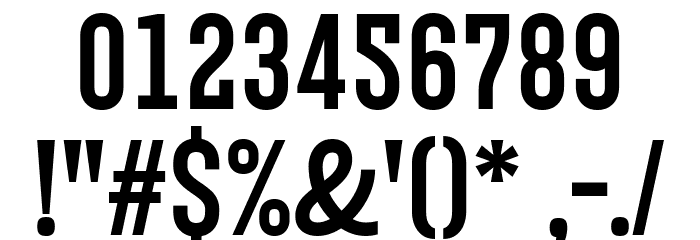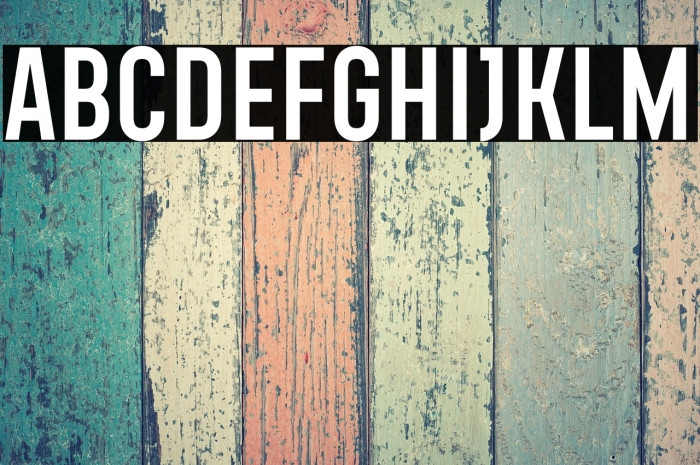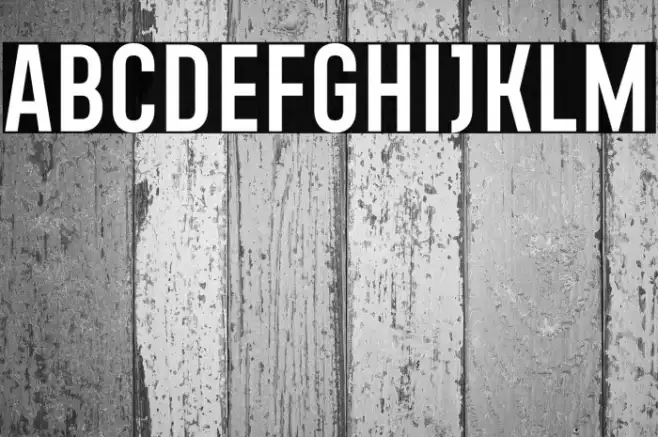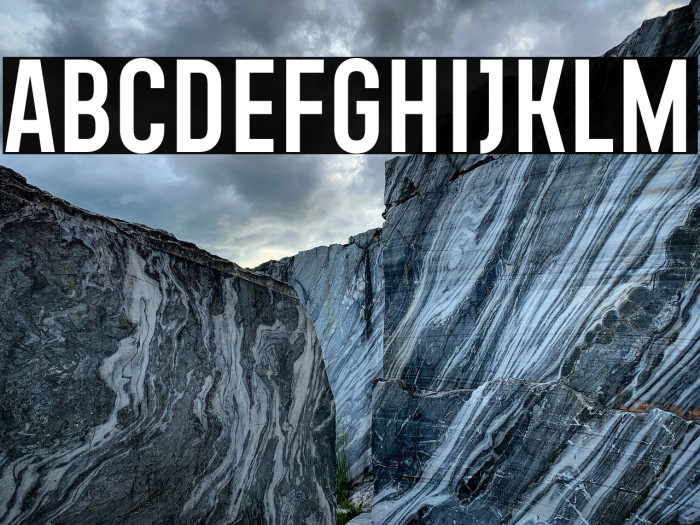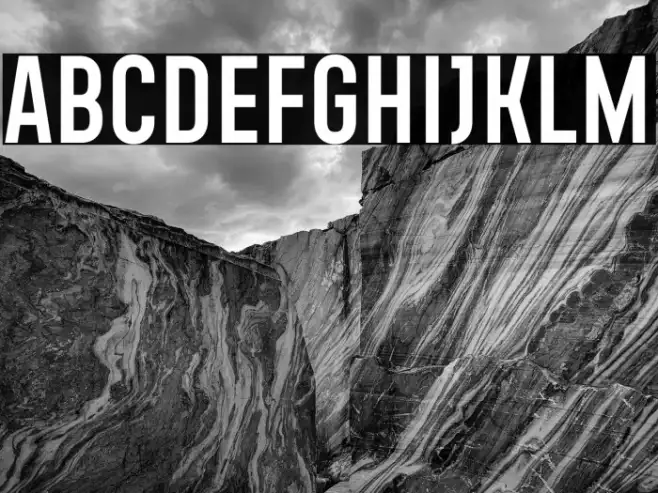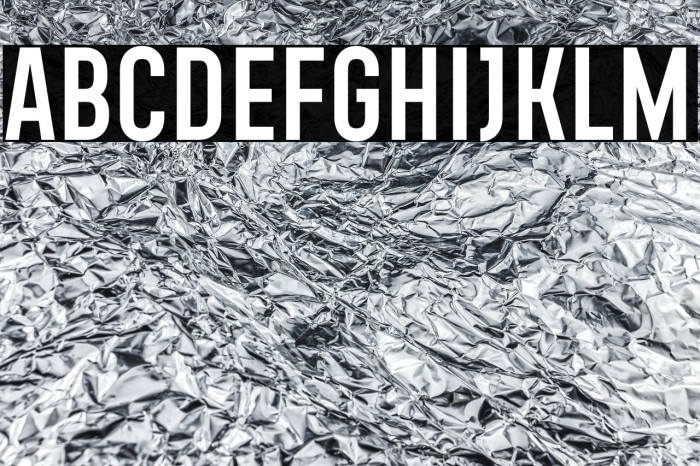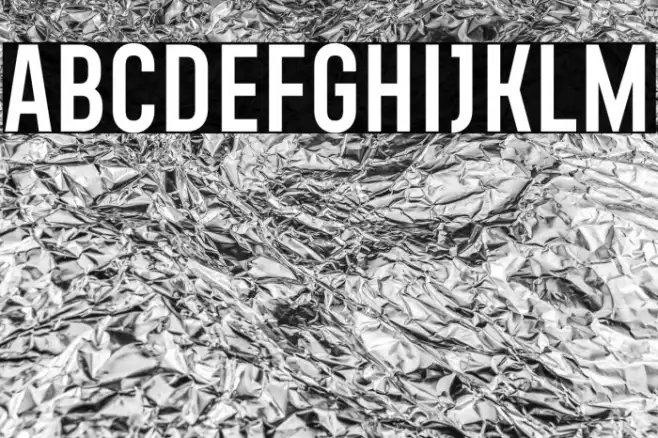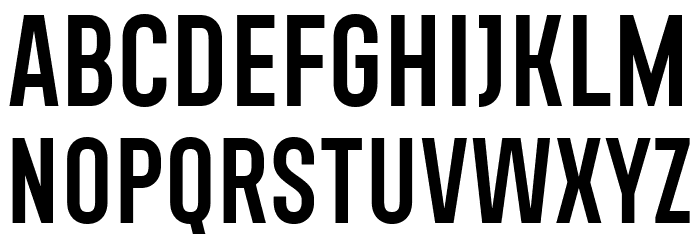
Xhers Font
Xhers Description
This font features a bold and modern sans-serif style with clean, straight lines and uniform stroke widths. The characters are tall and narrow, giving it a condensed appearance. The uppercase letters are prominent and assertive, while the lowercase letters maintain a consistent height, contributing to a cohesive look. The numerals are clear and easy to read, matching the overall aesthetic of the font. Special characters are well-defined, ensuring versatility in various applications. The font's simplicity and clarity make it suitable for a wide range of design projects, from branding to digital media.
| Proposed Projects | Ideal for branding, advertising, headlines, posters, and digital media projects. |